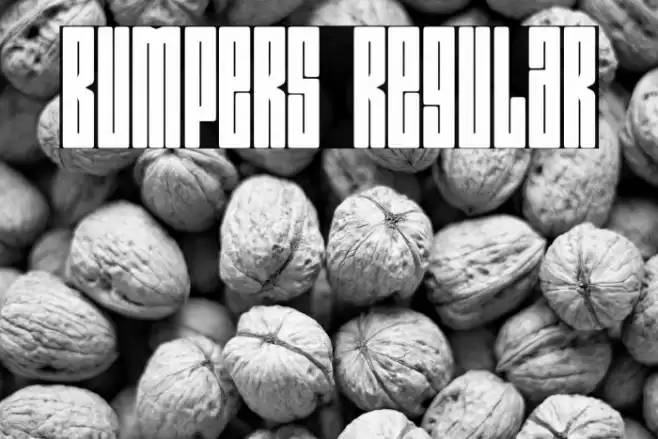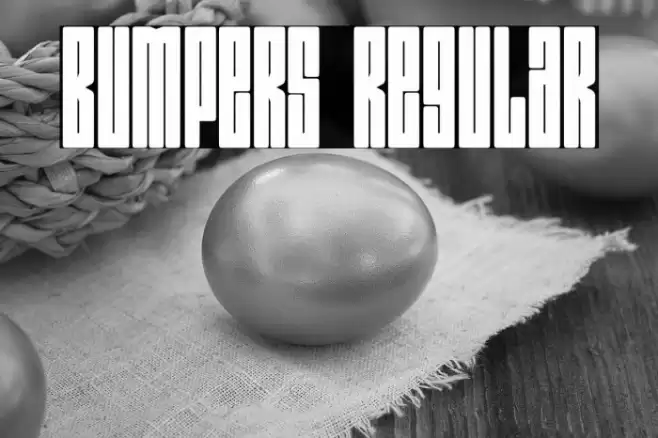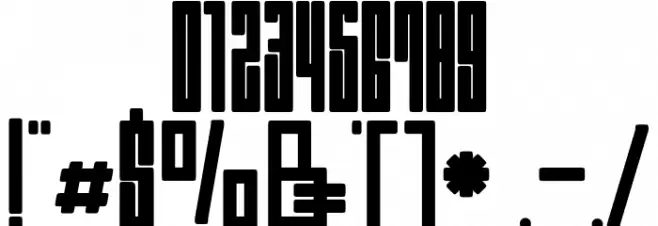
Bumpers Regular Font
Bumpers Regular Description
This font is a bold and striking display typeface characterized by its tall, narrow letterforms and uniform stroke width. The uppercase and lowercase letters share a consistent height, creating a cohesive and structured appearance. The geometric design is emphasized by the straight lines and sharp angles, giving it a modern and edgy feel. The numerals and special characters maintain the same boldness, ensuring readability and impact. This font's unique style makes it suitable for attention-grabbing headlines and titles.
A bold, narrow display font with geometric, uniform strokes from Regular fonts.
- Proposed Projects: Ideal for posters, logos, branding, and any design requiring a strong visual impact.
- Character Spacing: Tight